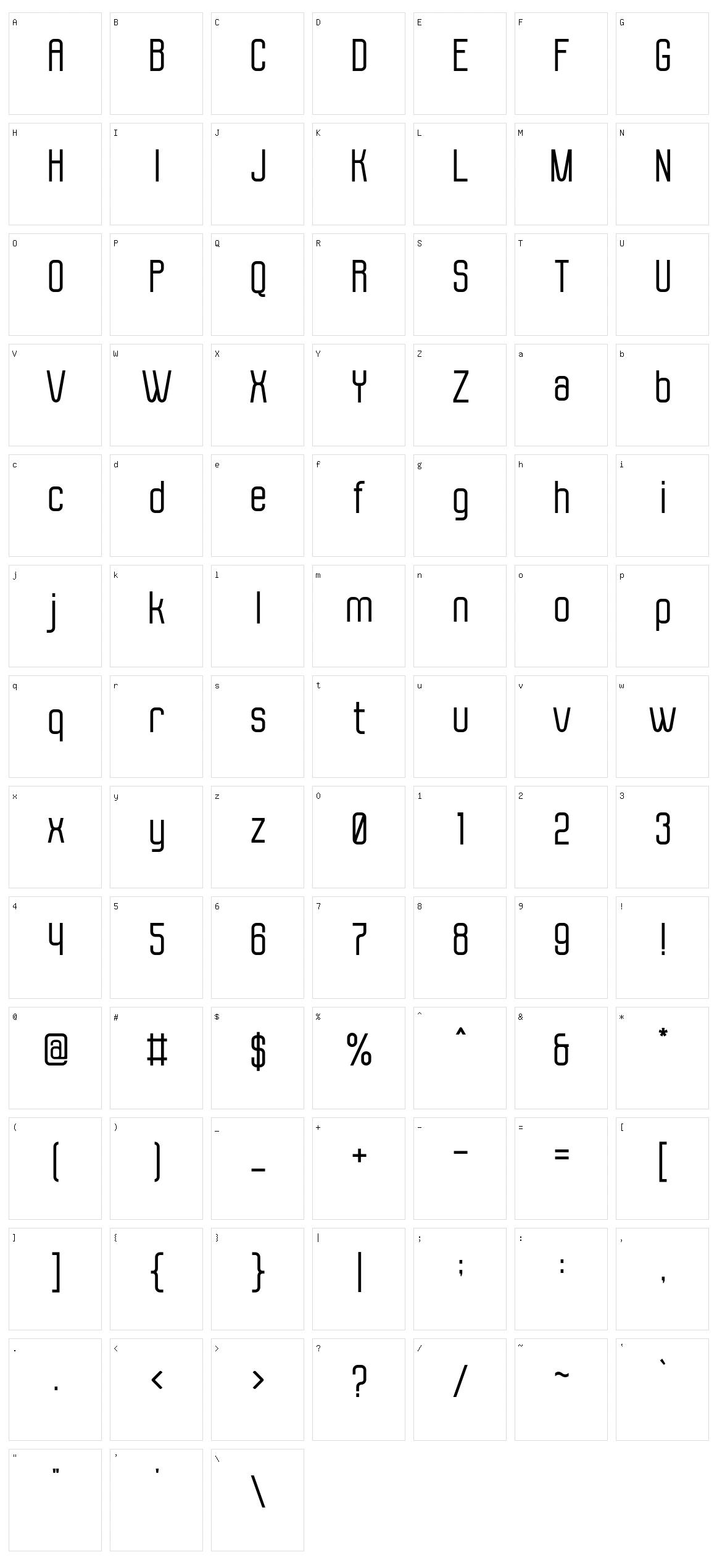
The free font Molor is carefully designed by Mohammad Azmil Bahar, showcasing a thoughtful balance of creativity and usability and falls under the Sans serif font style. When you download the ZIP file, it contains only 15.4 KB of font files, making it lightweight and quick to download. Please review the license details below to understand permitted usage and distribution rights. If license information is not available, we recommend using this font for personal projects only or contacting the author directly for commercial usage permissions.